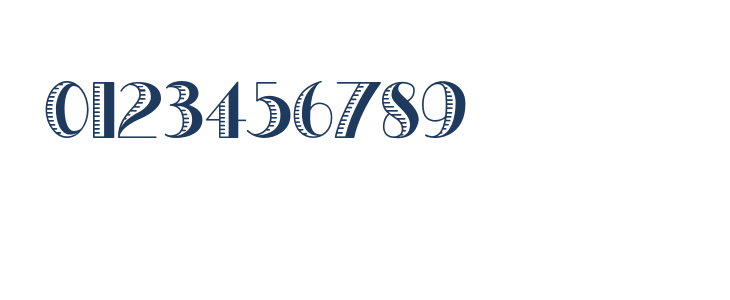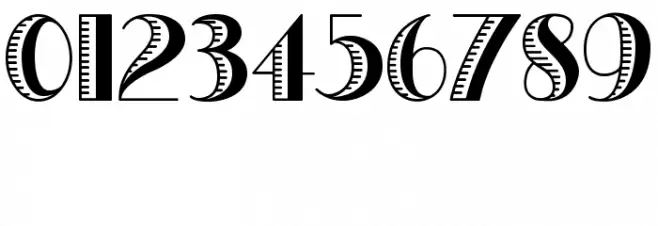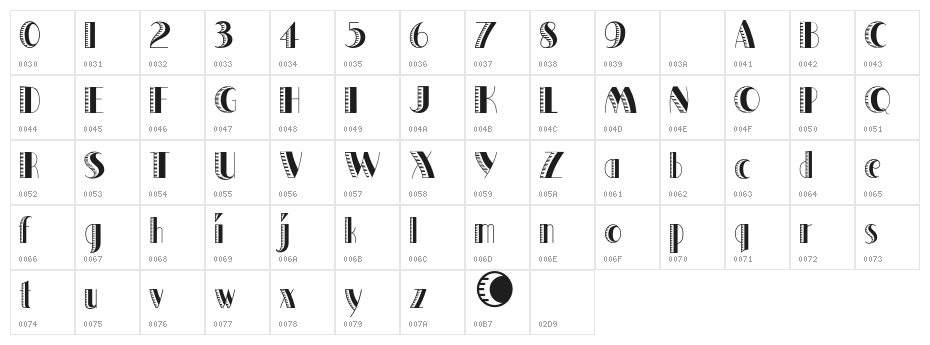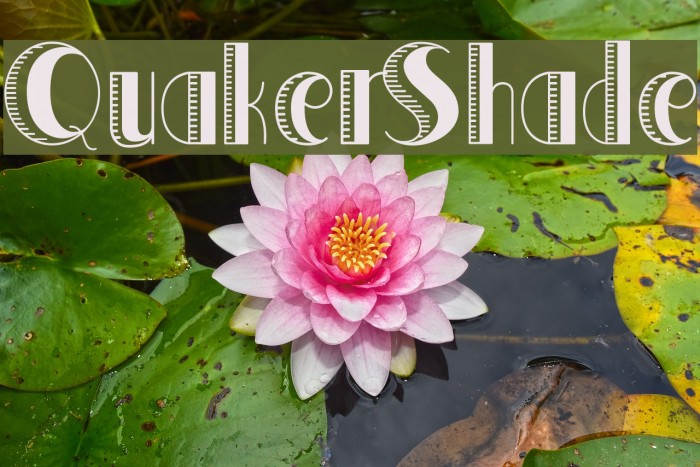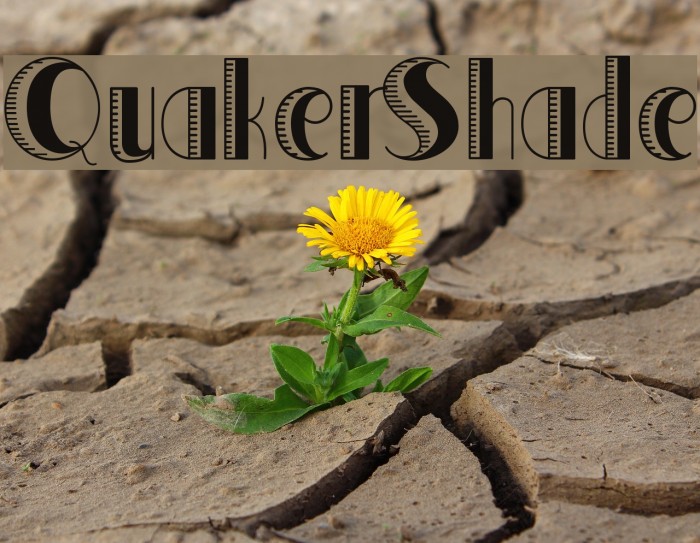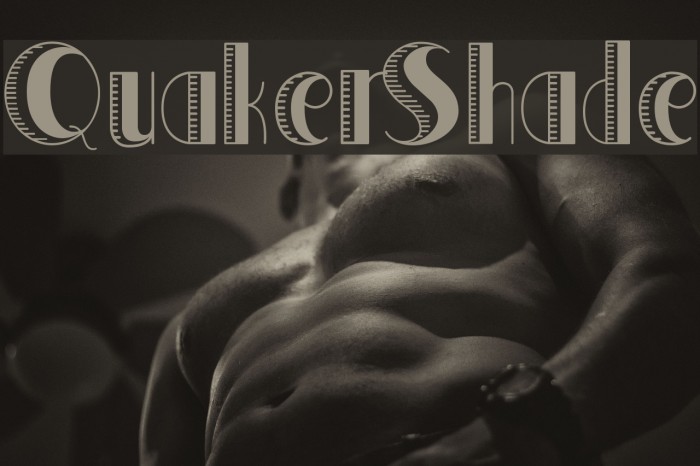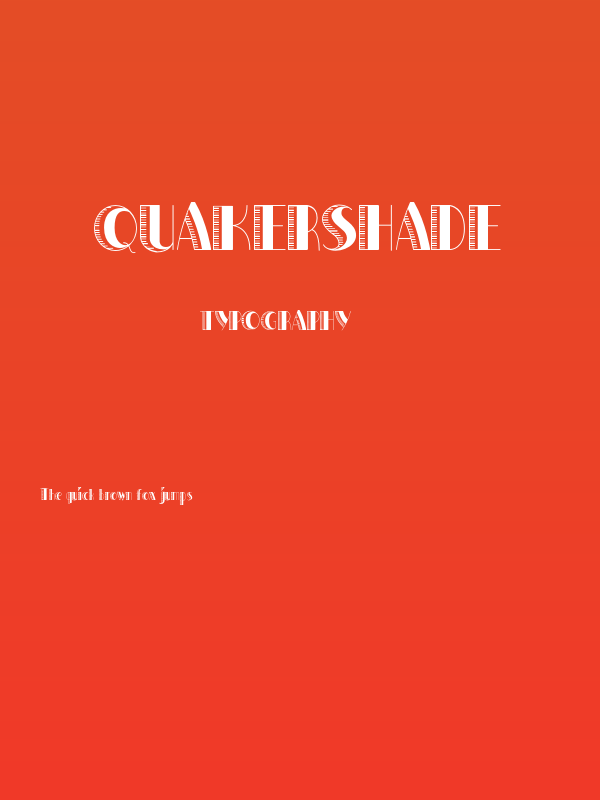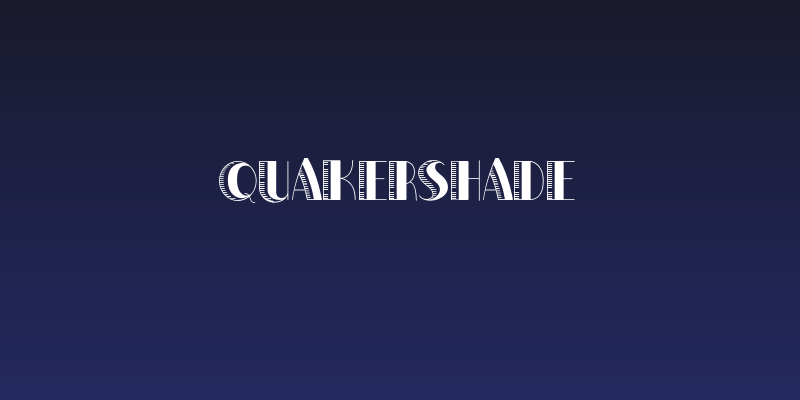
QuakerShade Font
✎ Art Deco
QuakerShade Description
This font features a unique blend of Art Deco and modern design elements, characterized by its bold, geometric shapes and intricate line detailing within each character. The uppercase letters exhibit a strong presence with their thick vertical lines and contrasting thin horizontal strokes, creating a dynamic visual rhythm. The lowercase letters maintain this aesthetic while offering a slightly more delicate appearance, enhancing readability. Numbers and special characters follow the same stylistic cues, ensuring consistency across all glyphs. The font's distinct style makes it ideal for creative and eye-catching designs.
| Overall Style | Vintage, Modern |
| Proposed Projects | Ideal for branding, poster design, album covers, and any project requiring a striking, vintage-modern aesthetic. |